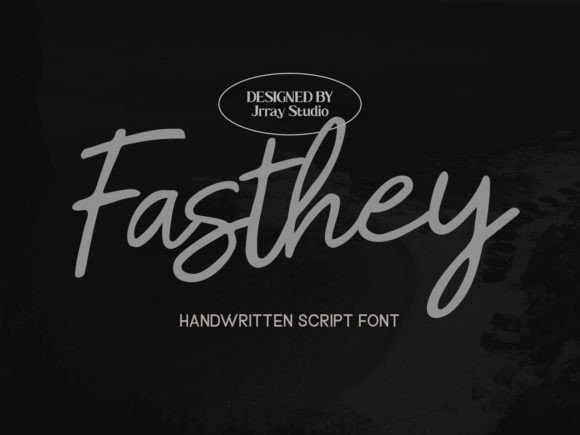
Introducing Fasthey Font: A Vintage-Inspired Script Typeface
In the world of typography, fonts play a crucial role in conveying the tone and personality of a brand or creative project. Among the numerous font styles available, script fonts have gained immense popularity for their elegance and sophistication. One such font that has caught the attention of designers and artists is “Fasthey,” a professional handwritten script font that exudes a vintage charm. In this article, we’ll explore the features, benefits, and uses of Fasthey Font, and why it’s an excellent choice for various creative projects.
What is Fasthey Font?
Fasthey is a vintage-inspired script typeface that boasts a unique, handcrafted feel. This font is designed to add a touch of elegance and sophistication to any creative project. With its flowing lines, intricate connections, and classic letterforms, Fasthey Font is perfect for designers, artists, and crafters looking to add a personal touch to their work.
Key Features of Fasthey Font
- Vintage-inspired design: Fasthey Font draws inspiration from classic script fonts, making it an excellent choice for projects that require a nostalgic or retro feel.
- Handwritten script style: The font’s handwritten script style gives it a personal, human touch that’s perfect for creative projects.
- Elegant and sophisticated: Fasthey Font’s flowing lines and intricate connections make it an excellent choice for projects that require a touch of elegance and sophistication.
- High-quality design: The font is designed with precision and attention to detail, ensuring that it looks great in various sizes and resolutions.
Uses of Fasthey Font
Fasthey Font is a versatile typeface that can be used in a wide range of creative projects, including:
- Logos and branding: The font’s unique, handcrafted feel makes it an excellent choice for logos and branding materials.
- Cards and invitations: Fasthey Font is perfect for creating elegant and sophisticated cards and invitations for special occasions.
- Apparel and textiles: The font’s vintage-inspired design makes it an excellent choice for apparel and textile designs.
- Printed products: Fasthey Font can be used in various printed products, such as brochures, flyers, and posters.
- Product packaging: The font’s elegant and sophisticated design makes it an excellent choice for product packaging.
- Letterhead and stationery: Fasthey Font can be used to create elegant and sophisticated letterhead and stationery.
- Magazines and books: The font’s classic letterforms make it an excellent choice for magazines and books.
Benefits of Using Fasthey Font
Using Fasthey Font in your creative projects offers several benefits, including:
- Unique and distinctive design: Fasthey Font’s vintage-inspired design sets it apart from other fonts, making it an excellent choice for designers and artists looking to create unique and distinctive work.
- Elegant and sophisticated feel: The font’s elegant and sophisticated design makes it perfect for projects that require a touch of class and refinement.
- High-quality design: Fasthey Font is designed with precision and attention to detail, ensuring that it looks great in various sizes and resolutions.
- Versatility: The font can be used in a wide range of creative projects, from logos and branding to magazines and books.
Tips for Using Fasthey Font
Here are some tips for using Fasthey Font in your creative projects:
- Pair it with contrasting fonts: Pair Fasthey Font with contrasting fonts to create visual interest and add depth to your design.
- Use it in moderation: Use Fasthey Font in moderation to avoid overwhelming your design. The font’s elegant and sophisticated design makes it perfect for headlines and titles.
- Experiment with colors: Experiment with different colors to find the perfect match for your design. Fasthey Font looks great in a range of colors, from classic black and white to bold and bright hues.
Fasthey Font is a professional handwritten script font that exudes a vintage charm. With its elegant and sophisticated design, it’s perfect for creative projects that require a touch of class and refinement. Whether you’re a designer, artist, or crafter, Fasthey Font is an excellent choice for logos, cards, apparel, printed products, invitations, product packaging, letterhead, magazines, and books. So why not give Fasthey Font a try and see how it can elevate your creative projects?
- What is Fasthey Font?: Fasthey Font is a vintage-inspired script typeface that’s perfect for creative projects that require a touch of elegance and sophistication.